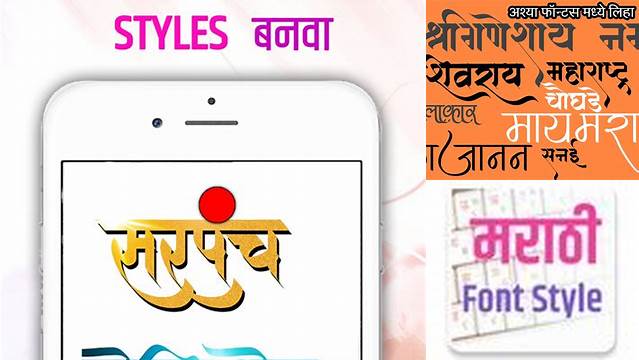
Introduction to Marathi Font Style
Hey everyone! Let's dive into the world of Marathi font styles. If you're here, you're probably looking for a way to jazz up your Marathi text, whether it's for a personal project, a professional document, or just for fun. Marathi, the language spoken by millions in Maharashtra, India, and beyond, has a rich and beautiful script. And let's be honest, using the right font can make all the difference! This guide will help you find the perfect Marathi font style online editor and guide you through the free download process. We'll explore various tools and resources that make it easy to transform your plain text into visually appealing content. Whether you're a seasoned designer or just starting, we'll cover everything you need to know to make your Marathi text shine.
Understanding Marathi fonts is the first step. The script is characterized by its elegant curves and unique letterforms, and different fonts highlight different aspects of this beauty. Some fonts are more traditional, evoking a sense of heritage and cultural pride, while others are more modern, making them ideal for contemporary designs. The choice of font can greatly impact the readability and overall look of your text. Factors like the intended audience, the purpose of the text (e.g., a formal document versus a social media post), and the desired aesthetic should all be considered when selecting a font. I mean, imagine trying to read a wedding invitation in a clunky, hard-to-read font – not a good look, right? Finding a good online editor and downloading the best Marathi font style is the easiest way to get started.
This guide aims to make this process as easy as possible. We’ll explore the best online editors, the most popular and effective font styles, and how to make sure your text looks exactly how you want it. We'll delve into popular font families and specific fonts that are widely used and loved. We will explain how to select and use these fonts on your own computers. And since we're all about saving money and keeping things simple, we'll focus on free download options and easy-to-use online tools. No need to break the bank or get bogged down in complicated software! Let’s get started on a journey that makes working with Marathi text a breeze. Ready to create some awesome content? Let’s go!
Free Online Marathi Font Editors
Alright, let’s get down to brass tacks: Free Online Marathi Font Editors! The internet is a treasure trove of resources, and thankfully, there are several amazing, easy-to-use tools out there that make working with Marathi fonts a piece of cake. These editors are perfect for anyone who needs to create visually appealing Marathi text without the hassle of installing specialized software. No downloads, no complicated setups – just hop online and start typing! The best part? They’re all free! This section will spotlight some of the best online editors and what makes them so great.
First off, let's talk about what to look for in a good online Marathi font editor. The editor should offer a variety of Marathi fonts, so you can find the perfect one for your project. You need options! Think about different styles like traditional, modern, or even something a little more playful. The editor should also have easy-to-use formatting options. This includes the ability to change font size, color, alignment, and other basic features. A user-friendly interface is crucial. You don't want to spend hours figuring out how to use the tool. The best editors are intuitive and allow you to focus on your content. Another key feature is real-time preview. Being able to see how your text looks as you type is essential. It helps you make quick adjustments and ensures you get the exact look you want. Finally, a good editor should support copy-pasting your text from other sources. This saves time and effort, letting you quickly format existing content.
Here are some of the top contenders in the free online Marathi font editor arena:
- Google Input Tools: This is not just an editor but a powerful input tool. It supports multiple languages, including Marathi. You can type in English and it converts it into Marathi. It is integrated with Google’s ecosystem, it’s reliable, and easy to use. You can easily switch between different fonts to see how your text looks. This is a simple and effective choice for anyone needing to create Marathi text quickly.
- Online Marathi Typing Tools: Many websites offer dedicated online Marathi typing tools. They allow you to type in English and instantly convert it into Marathi script. These tools usually include font selection options and formatting features like changing the font size. These are great for quickly creating text in Marathi and offer a straightforward experience. Often, they also support various font styles, letting you customize the look of your text.
- Font Converters: Some online tools specifically designed for converting text into different fonts are great for finding the perfect style. These tools give you the option to experiment with different fonts and see how they affect your text. You can easily copy and paste your text and then choose from a list of available fonts. These are usually easy to use and perfect for getting the exact look you want. These are usually equipped with a variety of options. You can change font styles, sizes, and even adjust spacing. This allows you to fine-tune your text to make sure it’s perfect for your needs.
Remember, these tools are free, but always double-check the formatting after you copy and paste the text to make sure everything looks as expected. Get ready to start playing with different fonts and creating stunning content!
Top Marathi Font Styles for Free Download
Let's dive into the exciting world of Marathi font styles for free download! Choosing the right font can significantly impact your content. From headlines to body text, the style and appearance of your fonts can affect readability, and overall presentation. This section will explore some of the most popular and widely used Marathi fonts that you can easily download and use in your projects. We will focus on fonts that are not only beautiful but also practical, ensuring your text looks great on screen and in print.
When considering Marathi font styles, keep a few things in mind. First, readability is key. You want a font that is easy to read, especially for body text. Avoid fonts that are too stylized or complex, as these can be difficult to read for extended periods. The font should match the tone of your content. A formal document calls for a different font than a social media post. The chosen font should be legible across various devices. It should look good whether it's on a computer screen, a phone, or in print. Consider the weight and spacing of the font. A good font will have different weights (light, regular, bold) and appropriate spacing to ensure the text doesn't look cramped or spread out. The best fonts offer multiple weights and styles, allowing you to create a visually appealing and readable document. Finally, ensure the font supports all the necessary characters. Some fonts may not include all the Marathi glyphs, leading to missing characters or errors. Always verify that the font you choose supports all required characters.